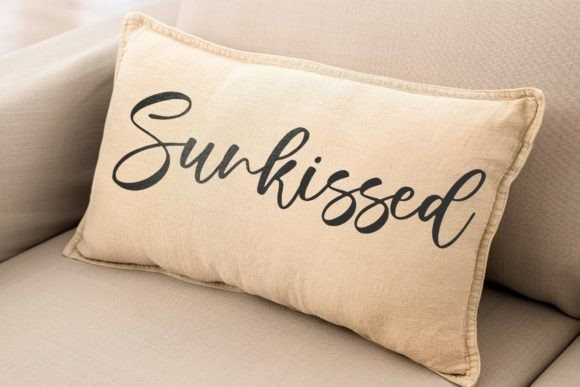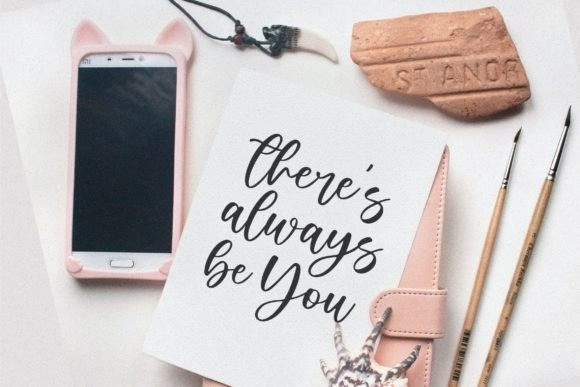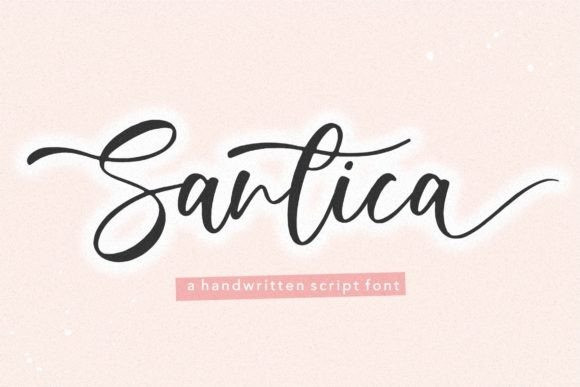
Santica Font
Santica Script  Font is a beautiful handwritten font. Santica is ideal for headings, flyers, greeting cards, product packaging, book covers, printed quotes, logotypes, and album covers.